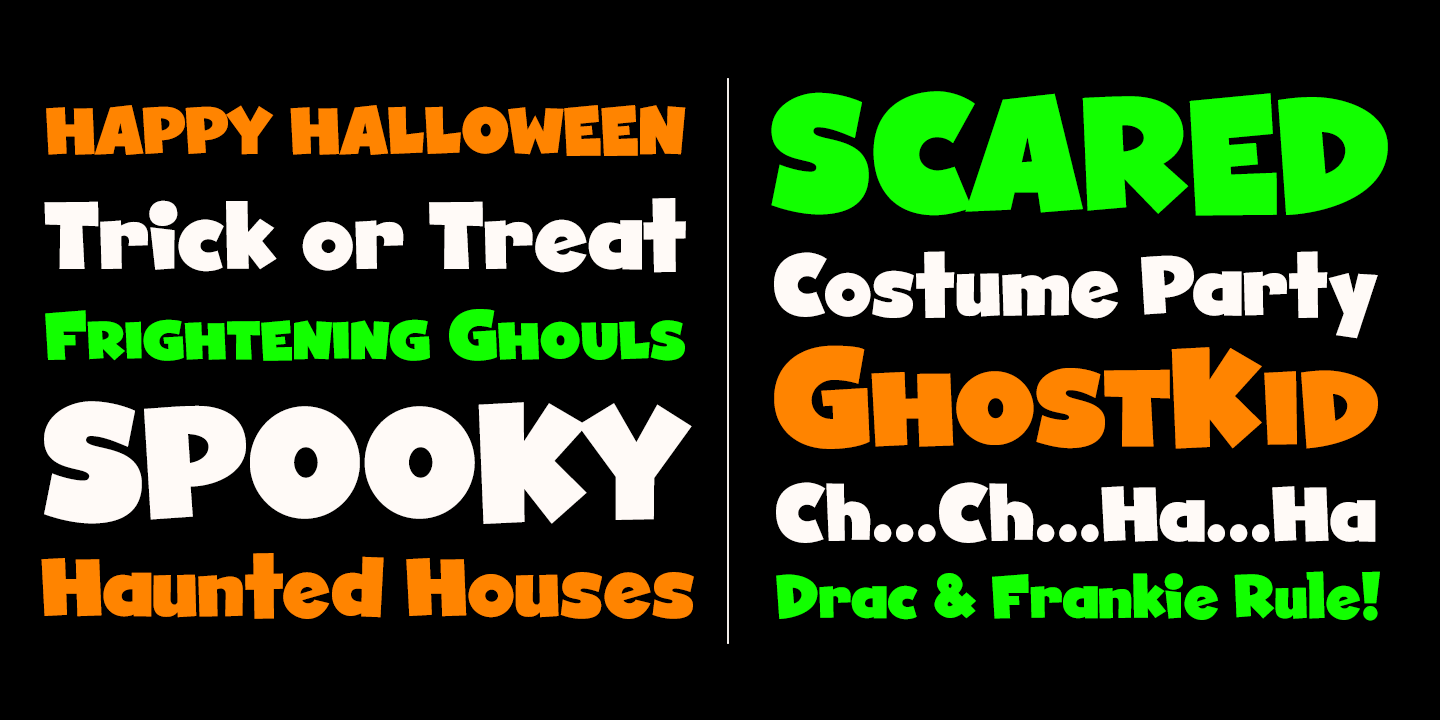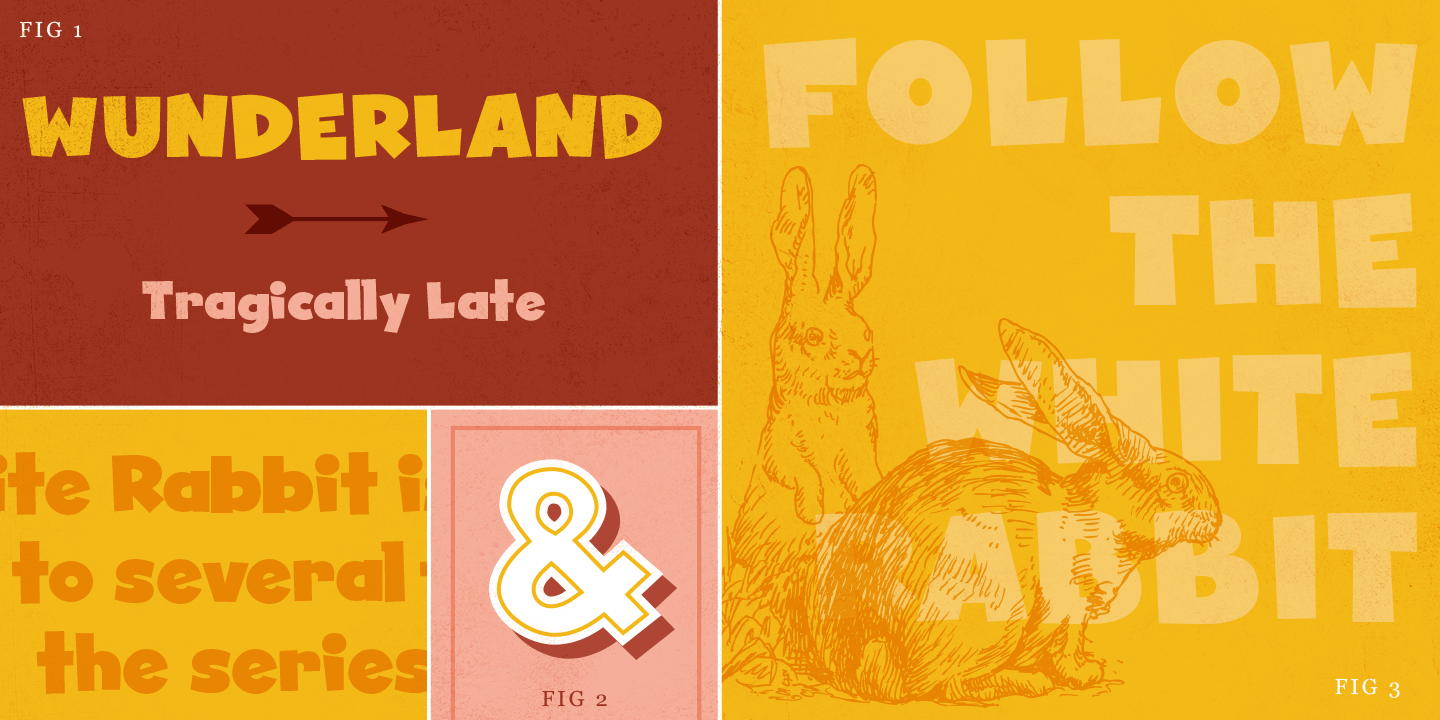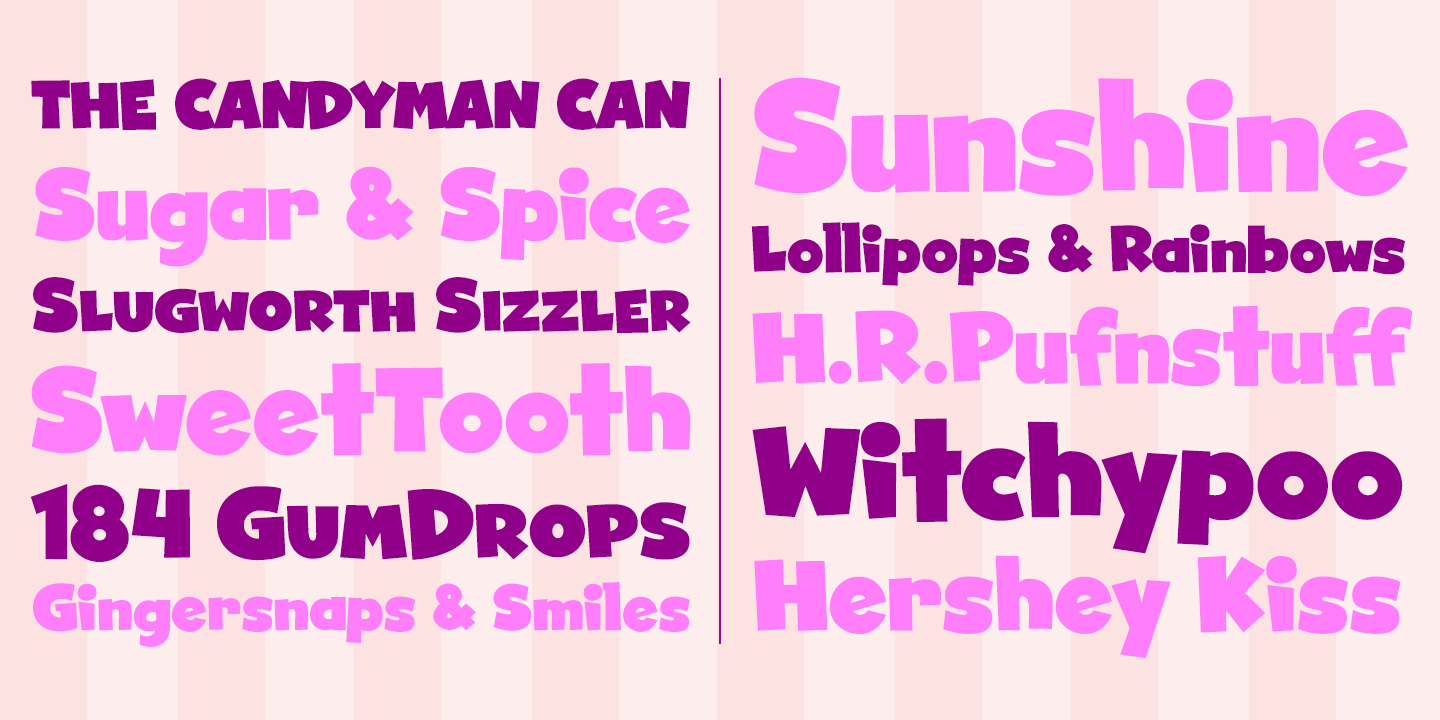
GhostKid AOE Pro
Font Family by Astigmatic One Eye
NYC Graffiti is translated into a lively comic letter-style that is highly engaging.
GhostKid was inspired by a few graffiti murals tagged ?iRAK?, the four letters that ended up inspiring this uber-black typeface.
GhostKid has now been expanded to a Pro version to include a Small Caps set, Unlimited Fractionals, Superiors & Inferiors, and Ordinals. GhostKid Pro achieves a wider appeal and a new sense of personality, taking its comic display typestyle to a whole new level.